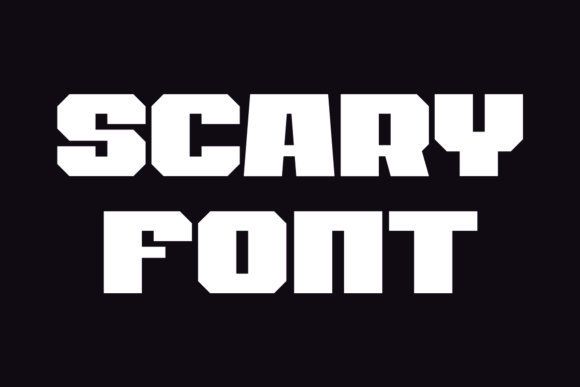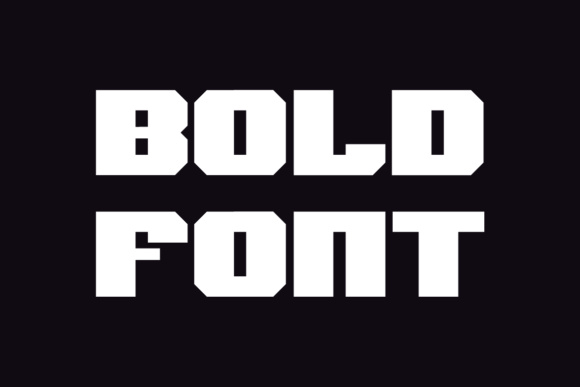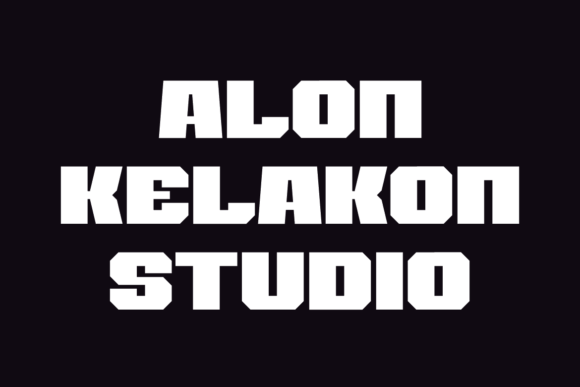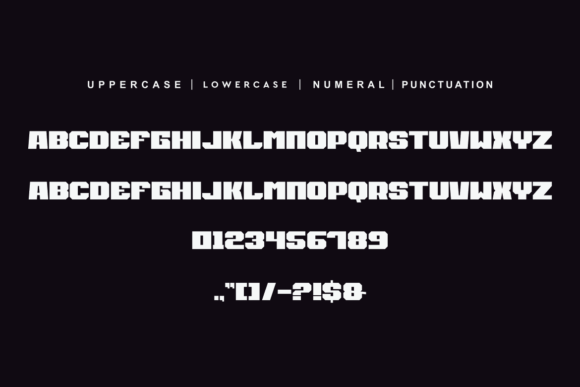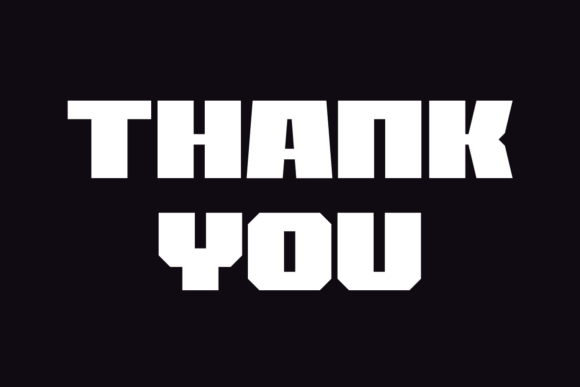
Unleash Your Creativity with Black Trick Font: A Bold and Expressive Typeface
Are you tired of using the same old fonts for your design projects? Look no further than Black Trick Font, a bold and expressive typeface that’s perfect for making a statement. With its thick and solid lines, this font is not only visually striking but also easy to read, making it ideal for a wide range of design applications.
The Characteristics of Black Trick Font
So, what makes Black Trick Font so special? For starters, its thick and solid lines give it a sturdy, dependable feel that’s hard to ignore. This font is not for the faint of heart – it’s bold, it’s confident, and it’s ready to make an impact. But what really sets Black Trick Font apart is its conservative bends. Unlike some fonts that can be overwhelming on the eyes, Black Trick Font strikes a perfect balance between playfulness and professionalism.
This balance is key to the font’s versatility. Whether you’re working on a logo, a poster, or a website, Black Trick Font is up to the task. Its unique blend of boldness and elegance makes it perfect for a wide range of design projects, from modern and edgy to classic and sophisticated.
The Benefits of Using Black Trick Font
So, why should you choose Black Trick Font for your next design project? For one, its bold and expressive nature makes it perfect for headlines, titles, and other applications where you want to grab attention. But it’s not just limited to big, bold statements – Black Trick Font is also great for body text, thanks to its clear and readable lines.
Another benefit of Black Trick Font is its flexibility. This font is suitable for a wide range of design applications, including:
- Logos and branding: Black Trick Font is perfect for creating bold, memorable logos that make a statement.
- Posters and flyers: With its eye-catching design, Black Trick Font is ideal for posters and flyers that need to stand out.
- Websites and blogs: Black Trick Font is a great choice for website headers, titles, and other design elements.
- Social media graphics: Whether you’re creating graphics for Facebook, Instagram, or Twitter, Black Trick Font is a great choice.
Tips for Using Black Trick Font
Now that you’re excited about Black Trick Font, here are a few tips for getting the most out of this amazing typeface:
Pair it with a simple font: To really make Black Trick Font shine, pair it with a simple, easy-to-read font for body text. This will create a nice contrast and make your design more visually appealing.
Experiment with colors: Black Trick Font looks great in bold, bright colors, but don’t be afraid to experiment with different shades and gradients.
Use it sparingly: While Black Trick Font is bold and expressive, it can be overwhelming if overused. Use it sparingly to create emphasis and draw attention to key elements.
In conclusion, Black Trick Font is a bold and expressive typeface that’s perfect for designers and crafters looking to add some excitement to their projects. With its thick and solid lines, conservative bends, and balanced fusion of playful and professional, this font is versatile and easy to use. Whether you’re working on a logo, poster, website, or social media graphic, Black Trick Font is a great choice. So why not give it a try and see what amazing designs you can create?